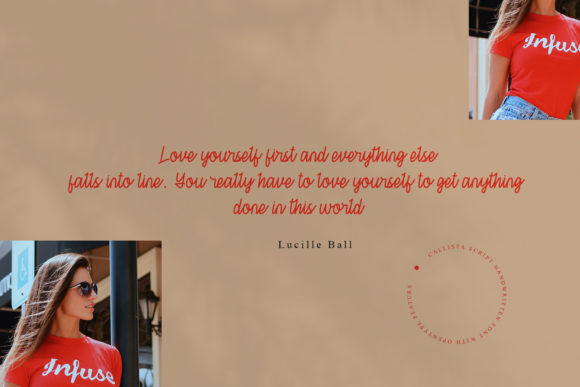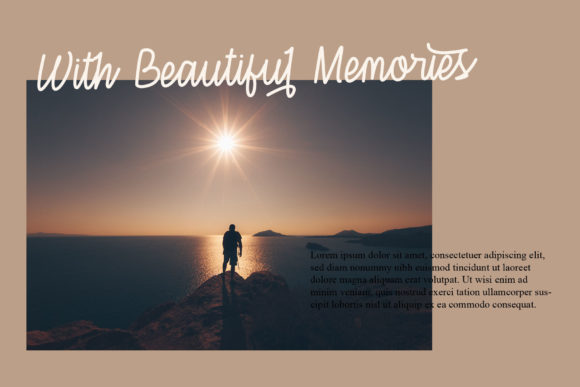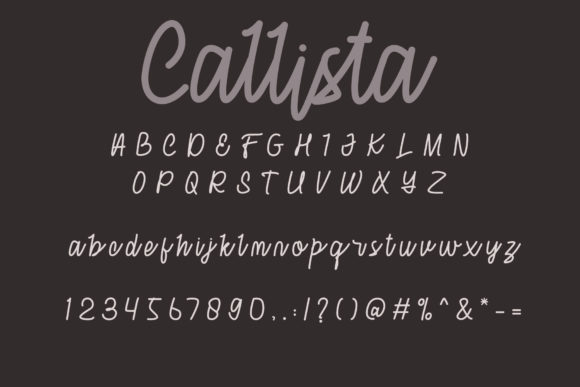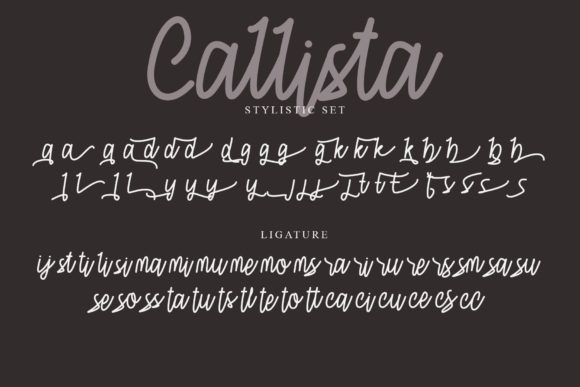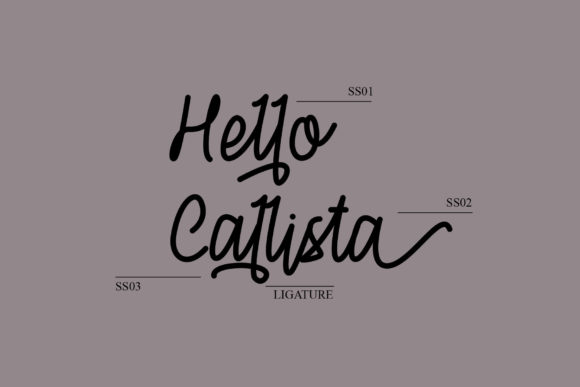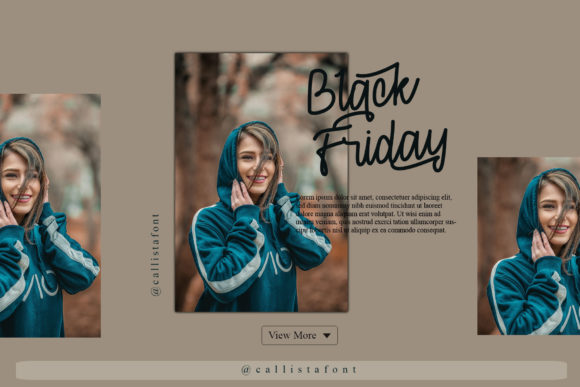
Discover the Elegance of Callista Font: A Comprehensive Guide
Are you a designer, crafty enthusiast, or simply someone who appreciates beautiful typography? Look no further than the stunning Callista Font. This exquisite script font is designed to add a touch of sophistication and elegance to any project, and we’re excited to dive into its features, benefits, and uses.
What is Callista Font?
Callista is a thin, delicate, and adaptable script font that exudes refinement and poise. Its slender lines and curves create a sense of movement and fluidity, making it perfect for a wide range of applications, from wedding invitations and branding materials to digital content and craft projects.
One of the standout features of Callista Font is its PUA (Private Use Area) encoding. This means that you can easily access all the glyphs and swashes, allowing you to add intricate details and flourishes to your designs. With PUA encoding, you can:
- Access a wide range of alternative characters and ligatures
- Easily swap out glyphs and swashes to create unique variations
- Customize your text to fit your brand’s style and aesthetic
Benefits of Using Callista Font
So, why choose Callista Font for your next project? Here are just a few benefits:
- Elegant and sophisticated: Callista Font adds a touch of luxury and refinement to any design
- Versatile: Suitable for a wide range of applications, from digital content to print materials
- Easy to use: PUA encoding makes it simple to access and customize glyphs and swashes
- High-quality: Professionally designed and crafted for optimal clarity and legibility
Uses for Callista Font
Callista Font is an incredibly versatile typeface, suitable for a wide range of projects and applications. Here are some ideas to get you started:
- Wedding invitations and stationery: Add a touch of romance and elegance to your wedding materials
- Branding and packaging: Create a sophisticated and luxurious brand identity with Callista Font
- Digital content: Use Callista Font to add a touch of elegance to your blog, website, or social media graphics
- Craft projects: Perfect for crafty enthusiasts, Callista Font can be used for handmade cards, scrapbooking, and more
Tips for Using Callista Font
To get the most out of Callista Font, here are a few tips:
- Experiment with glyphs and swashes: Take advantage of PUA encoding to add unique touches to your design
- Pair with complementary fonts: Combine Callista Font with other fonts to create a striking contrast
- Adjust font sizes and colors: Play with font sizes and colors to create visual interest and hierarchy
In conclusion, Callista Font is a stunning script font that offers a unique blend of elegance, sophistication, and versatility. With its PUA encoding, easy access to glyphs and swashes, and high-quality design, it’s the perfect choice for designers, crafty enthusiasts, and anyone looking to add a touch of luxury to their projects. So why wait? Download Callista Font today and discover the endless possibilities!